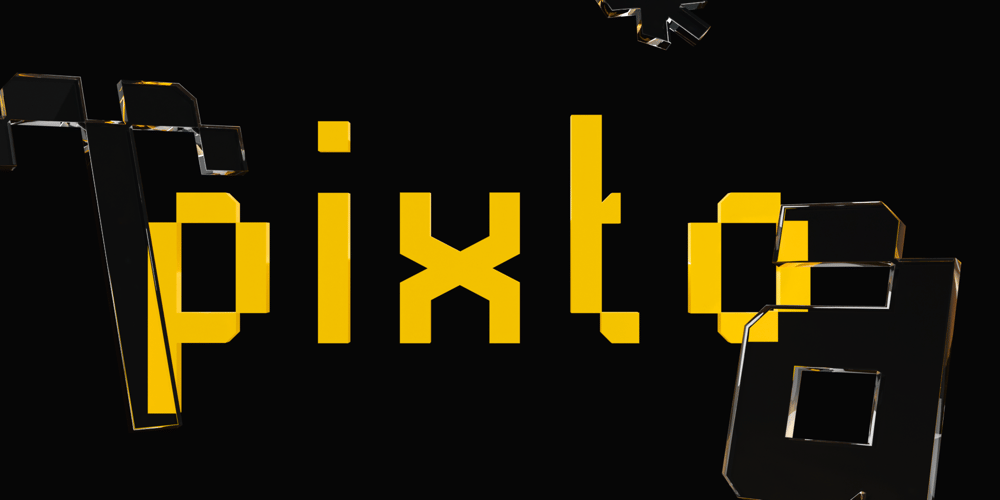
Pixto
Pixto font
Pixto Font Family was designed by Manzur Ghozaali and published by Ghozai Studio. Pixto contains 12 styles and family package options. Pixto is inspired by pixel font, monospace font, and retro game but with more simple and straightforward shapes. Different from regular pixel font, Pixto has an octagon on the edges to give an accent to make it more unique. This Pixto Family comes with 12 styles (regular and italic versions) with 6 weights each. Picto family is versatile and suitable for any design projects centered on mathematics, science, computers, branding, games, and UI / UX applications.